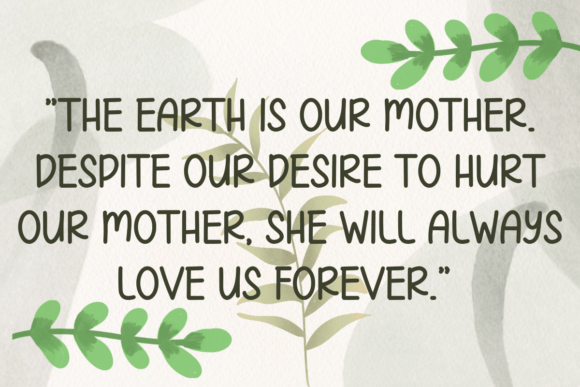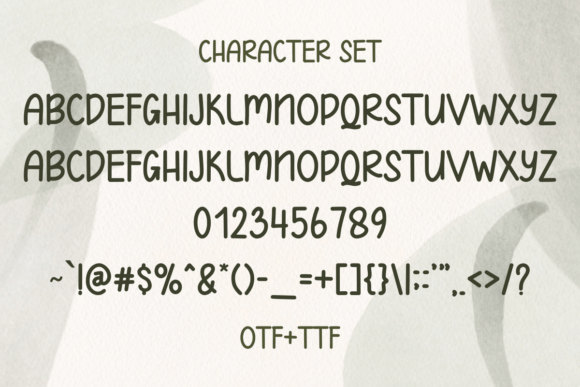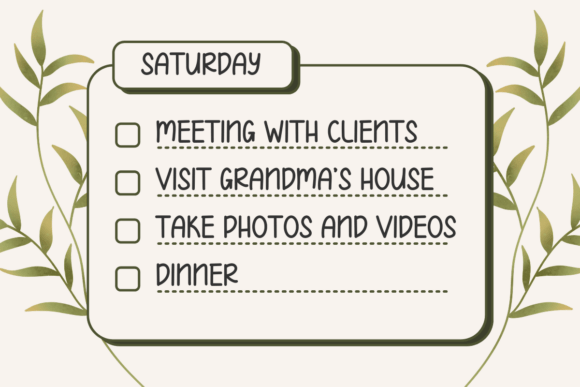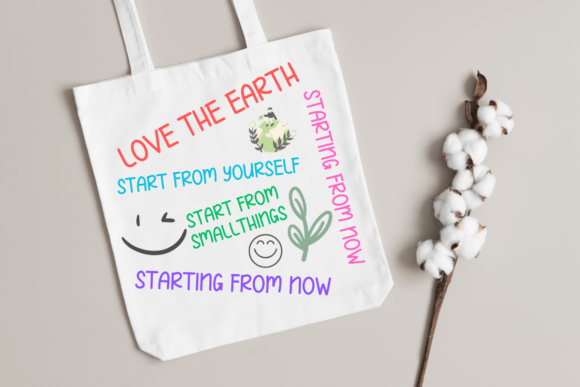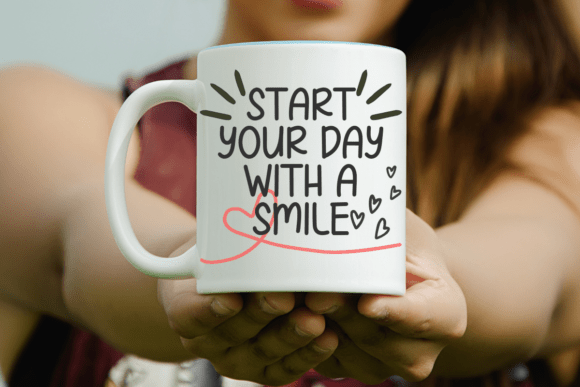
Introducing Blissful Feeling Font: The Perfect Playful Handwritten Font for Crafters and Designers
Are you a crafter, designer, or maker looking for a font that can add a touch of playfulness and friendliness to your projects? Look no further than the Blissful Feeling Font! This delightful handwritten font is perfect for a wide range of creative endeavors, from crafts and planners to KDP, stickers, greeting cards, and more.
What Makes Blissful Feeling Font So Special?
Blissful Feeling Font is a unique and charming handwritten font that is sure to bring a smile to your face. Its cute and friendly style makes it an ideal choice for crafters, designers, and makers who want to add a personal touch to their projects. Whether you’re creating something for yourself or as a gift for someone else, this font is sure to make your project stand out.
Perfect for Cricut, Sublimation, and DIY Projects
Blissful Feeling Font is a versatile font that can be used for a variety of creative projects. Its playful and handwritten style makes it perfect for Cricut projects, sublimation designs, and other DIY crafts. Whether you’re making custom vinyl decals, iron-on designs, or paper crafts, this font is sure to add a touch of whimsy and fun to your creations.
Ideal for Crafters, Designers, and Makers
Blissful Feeling Font is a must-have for crafters, designers, and makers who want to add a personal touch to their projects. Whether you’re creating custom planners, journals, or greeting cards, this font is sure to make your project look professional and polished. Its friendly and approachable style makes it perfect for creating handmade crafts, such as stickers, washi tape, and other embellishments.
Use Blissful Feeling Font for:
- Crafts: Add a personal touch to your handmade crafts, such as paper crafts, card making, and scrapbooking.
- Planners: Create custom planners, journals, and organizers that are both functional and beautiful.
- KDP: Use Blissful Feeling Font to create eye-catching book covers, journals, and planners for Kindle Direct Publishing.
- Stickers: Design custom stickers, washi tape, and other embellishments for your crafts and projects.
- Greeting Cards: Create personalized greeting cards for special occasions, such as birthdays, holidays, and weddings.
Why Choose Blissful Feeling Font?
There are many reasons why Blissful Feeling Font is the perfect choice for crafters, designers, and makers. Here are just a few:
- Unique and playful style: Blissful Feeling Font has a one-of-a-kind, handwritten style that is sure to make your projects stand out.
- Easy to read: Despite its playful style, Blissful Feeling Font is easy to read and understand, making it perfect for body text and headlines.
- Versatile: This font can be used for a wide range of creative projects, from crafts and planners to KDP and stickers.
- Compatible with Cricut and sublimation: Blissful Feeling Font is compatible with Cricut and sublimation designs, making it perfect for DIY projects.
In conclusion, Blissful Feeling Font is a must-have for crafters, designers, and makers who want to add a personal touch to their projects. Its playful and handwritten style makes it perfect for a wide range of creative endeavors, from crafts and planners to KDP, stickers, and greeting cards. With its ease of use, versatility, and compatibility with Cricut and sublimation, Blissful Feeling Font is the perfect choice for anyone looking to add a touch of whimsy and fun to their creations.